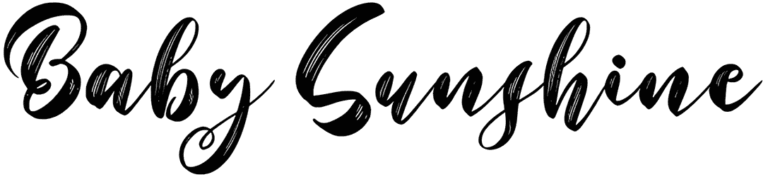
Bakiya Font
Bakiya is a new member of the script family that can take your projects to the next level. By using this handwritten font, you can give your writings a human touch and make them look natural. That’s why this font is mostly used for things like social media cover design or romance book covers. This watercolor font works great for any project related to human relations.